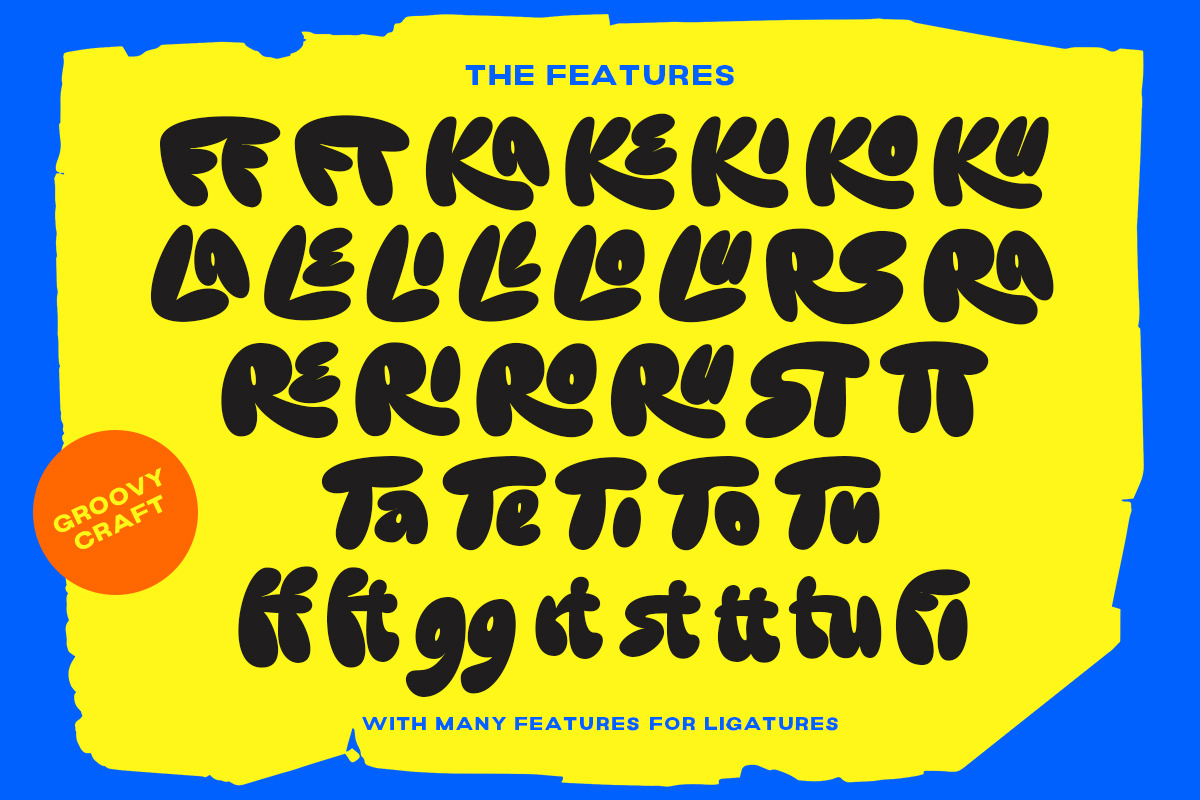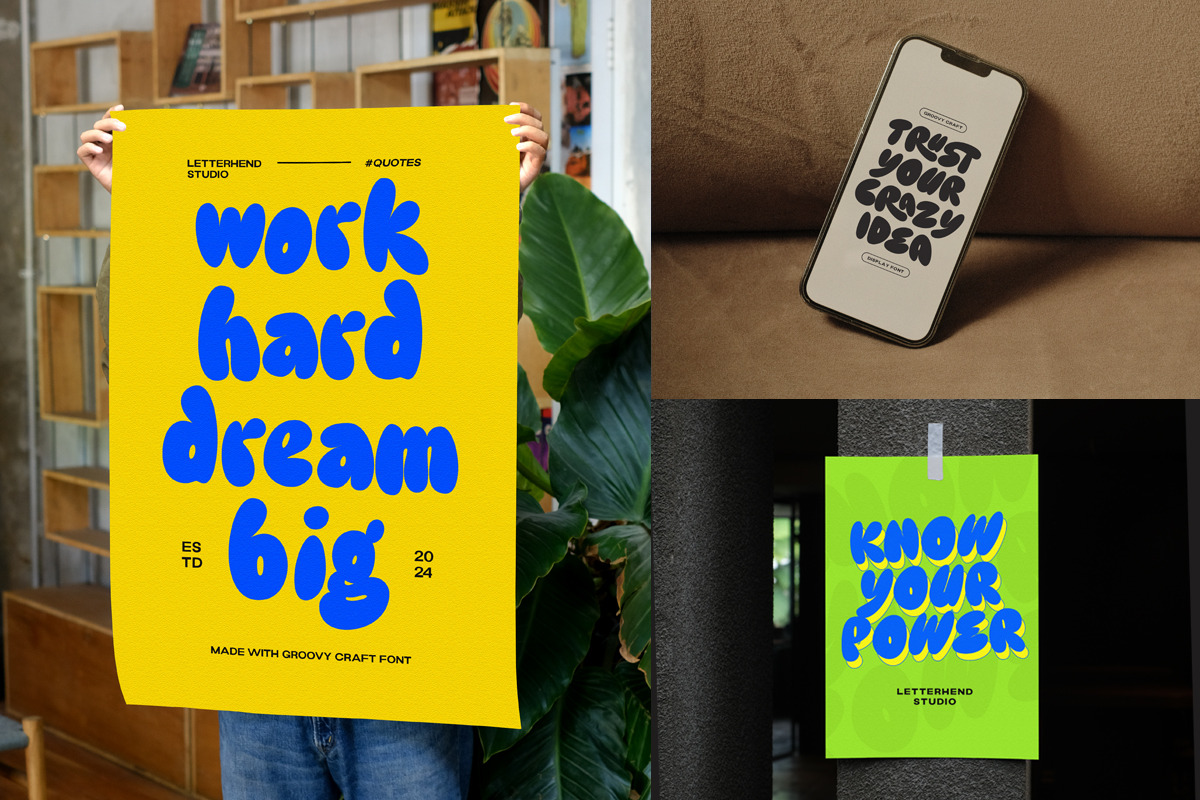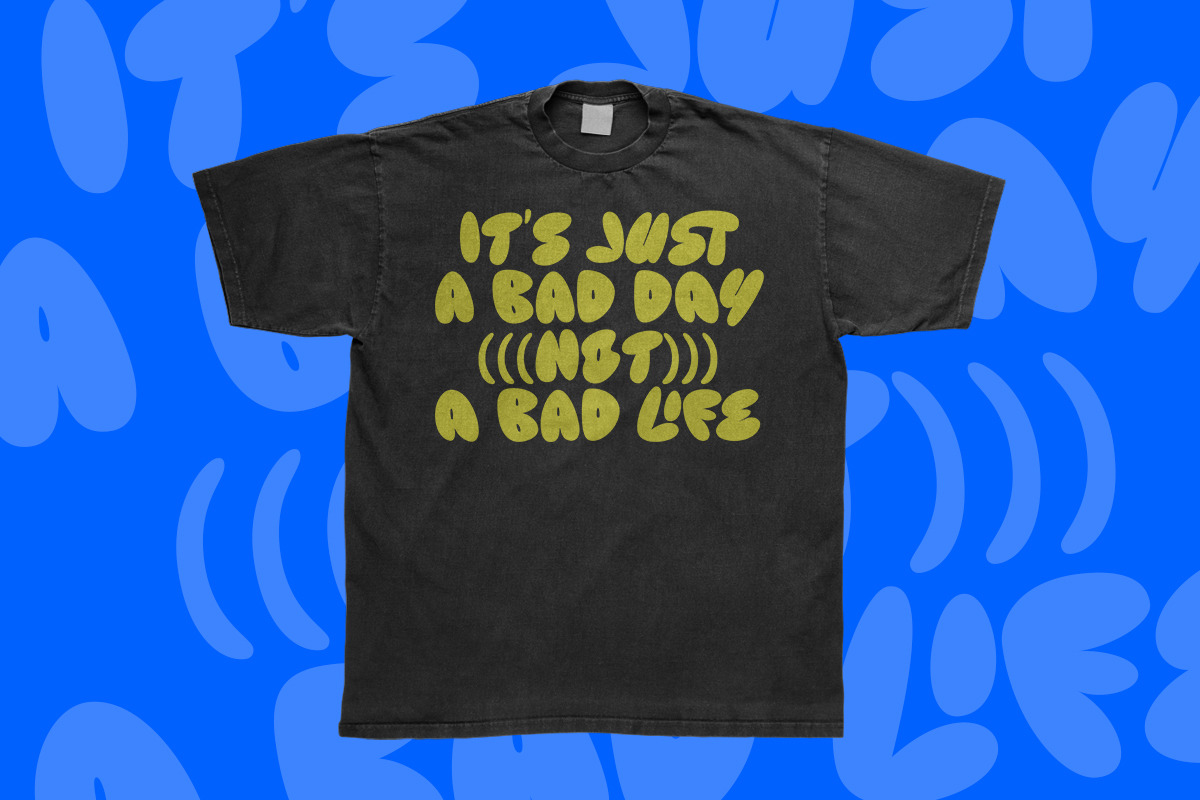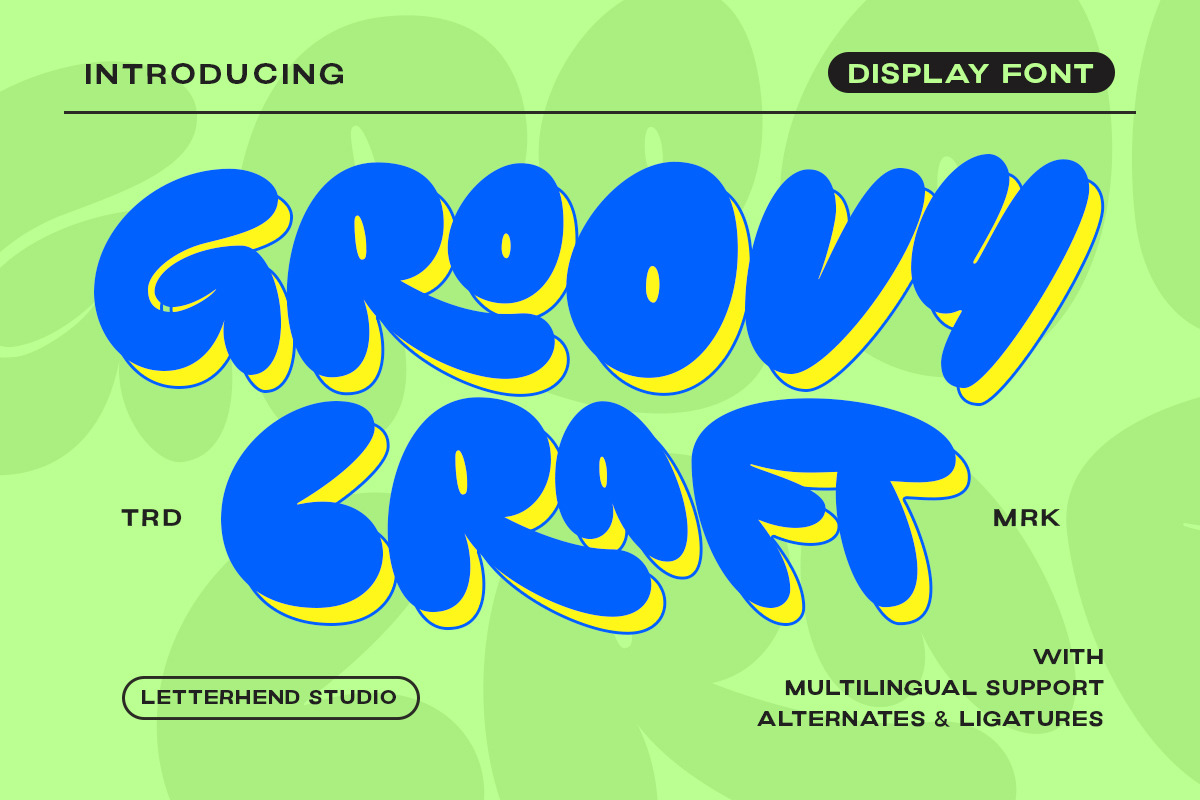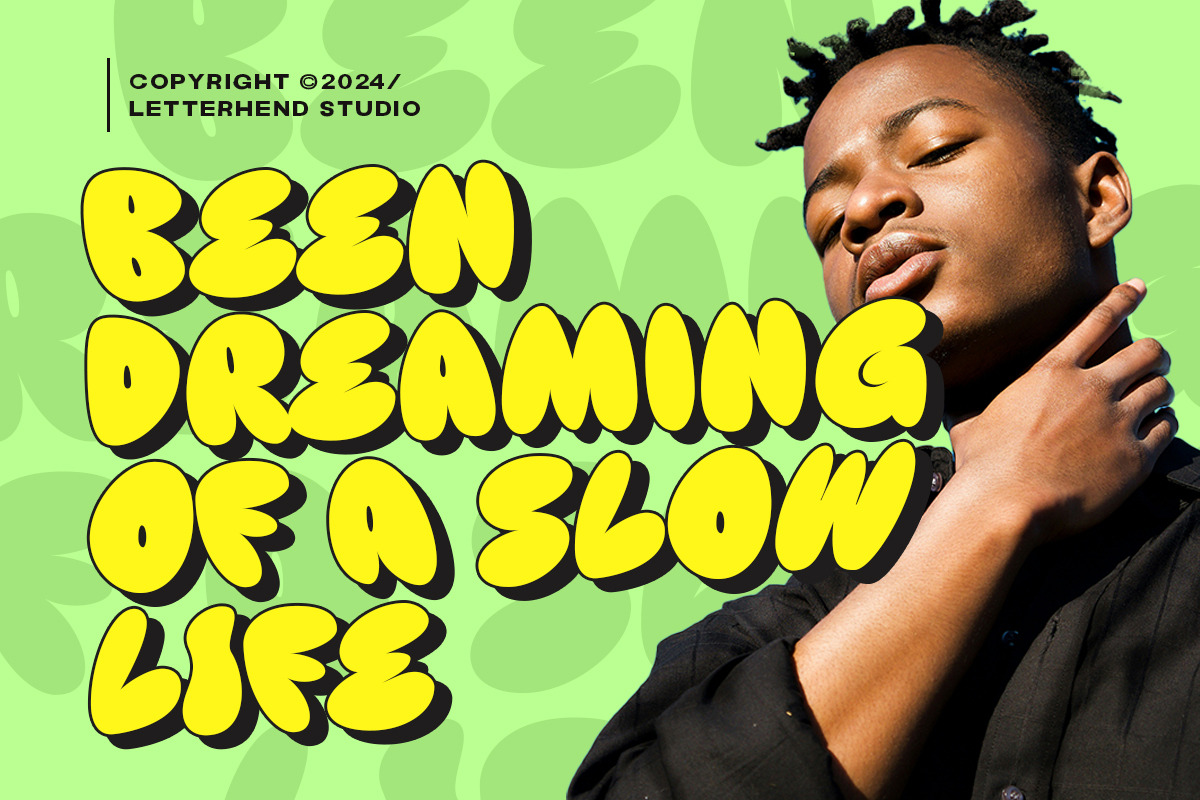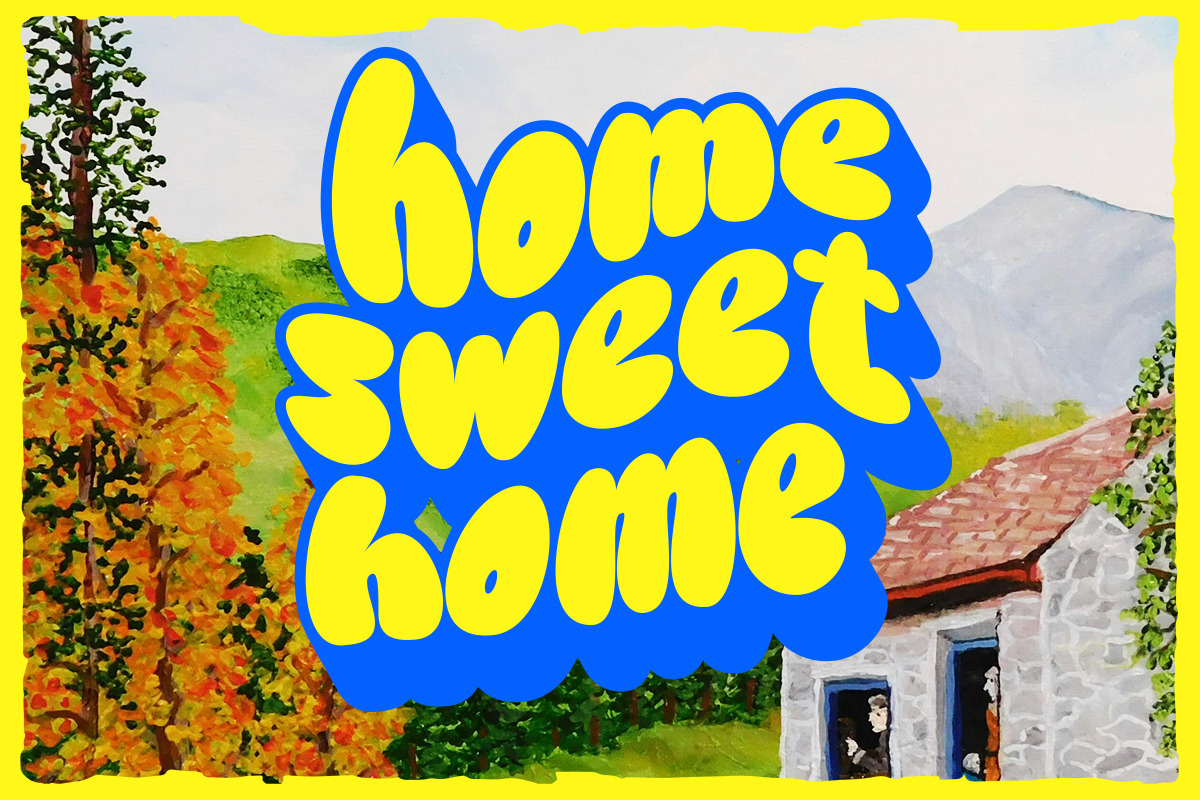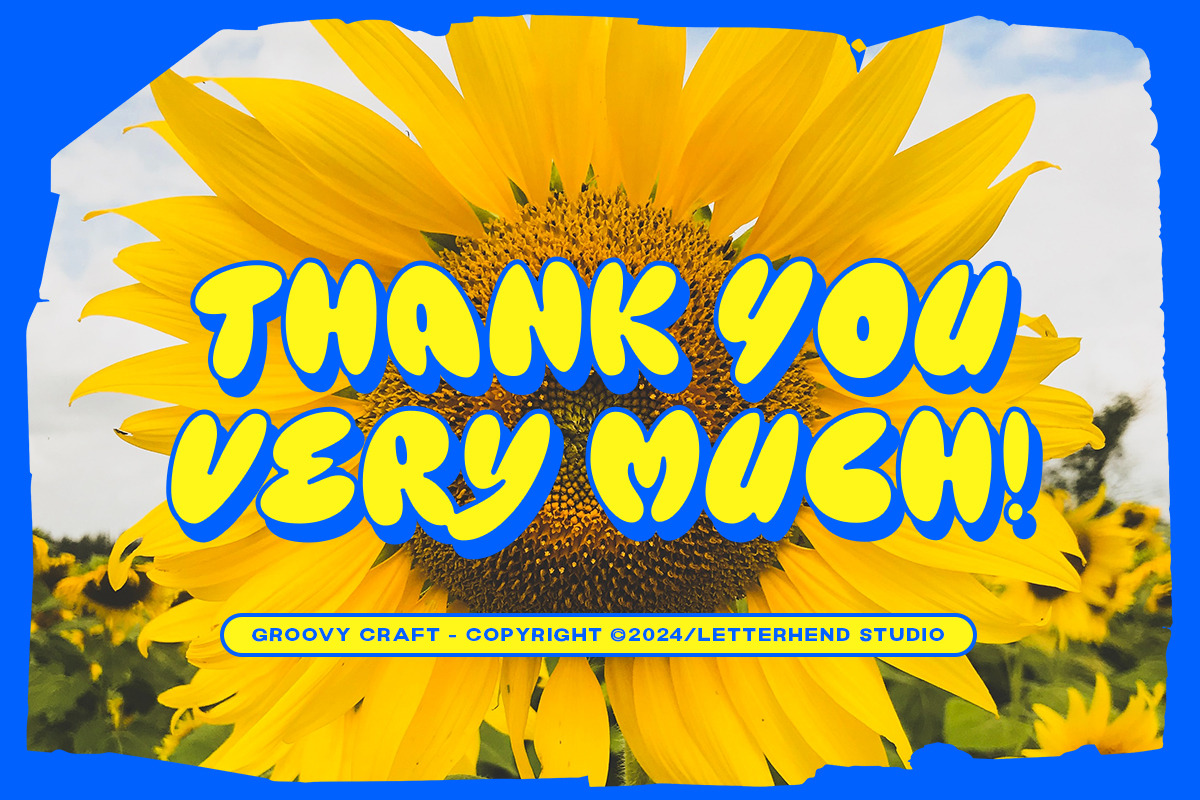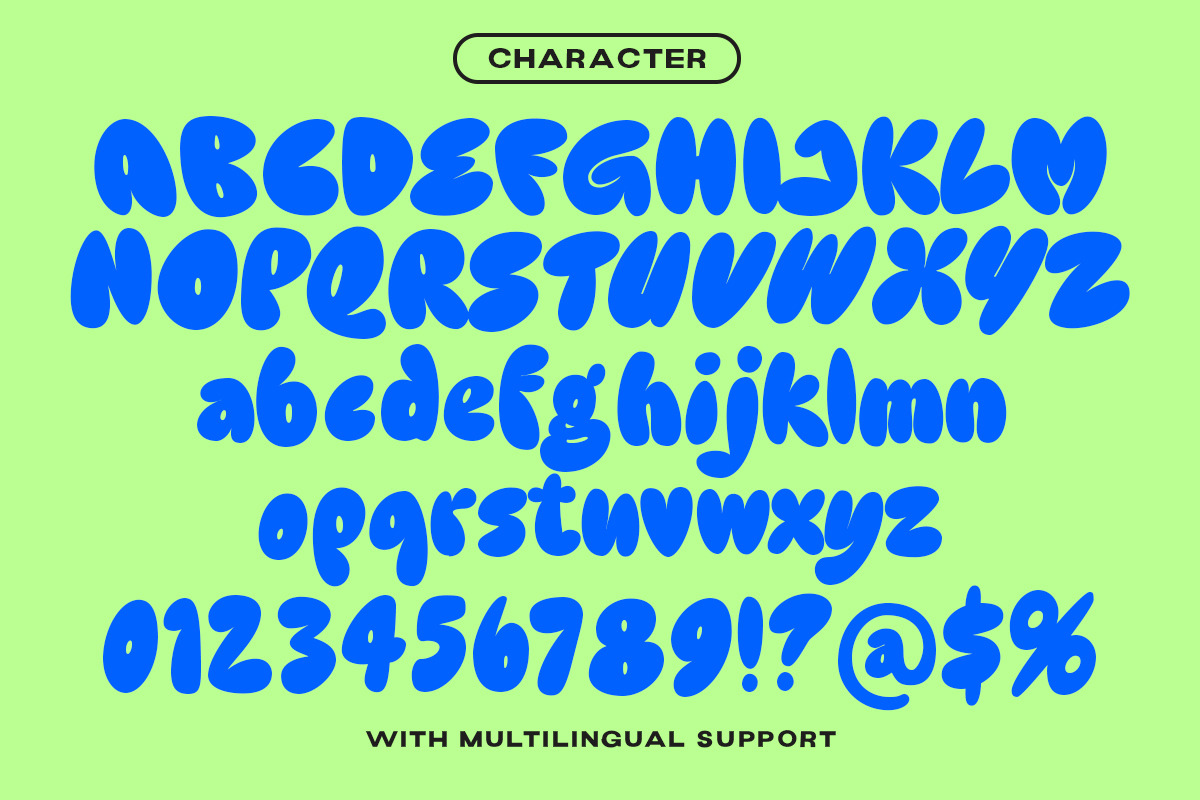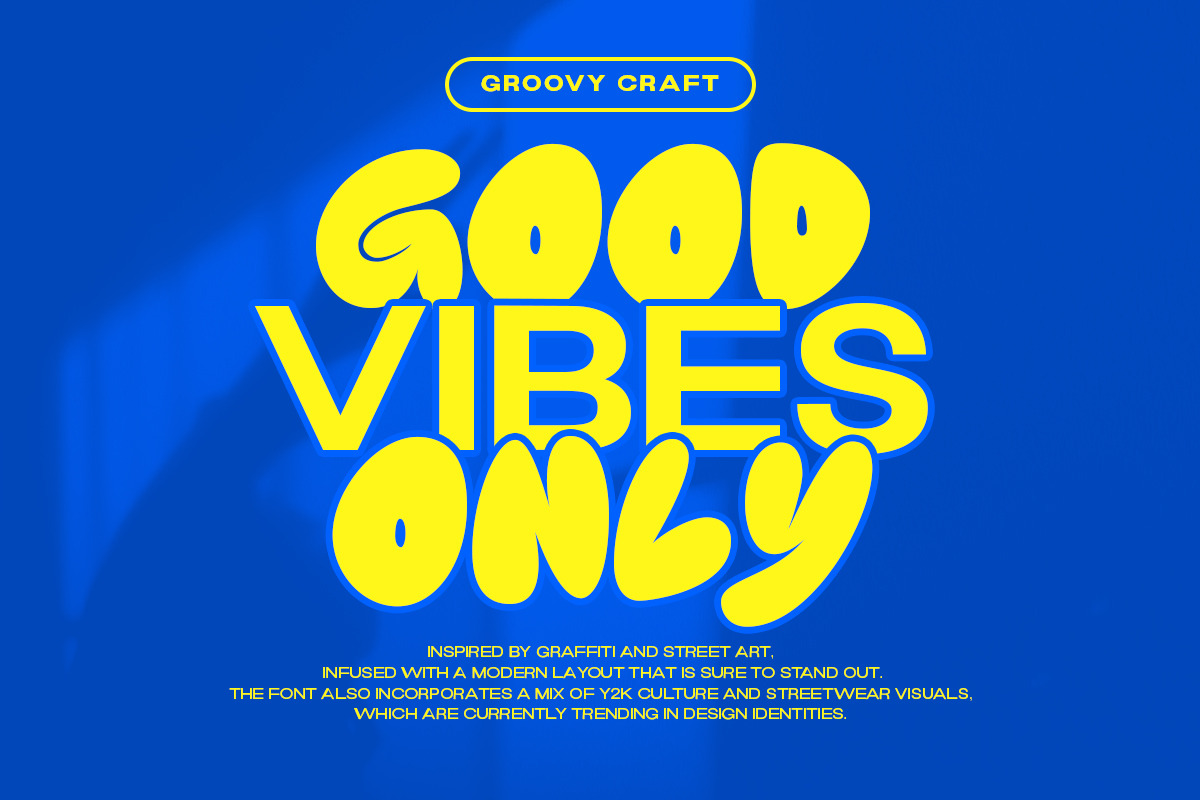
Groovy Craft Display Font
Groovy Craft is a funny display font with bubble letterform. This font will bring you back to retro feel. This font perfectly made to be applied especially in logo, and the other various formal forms such as invitations, labels, logos, magazines, books, greeting / wedding cards, packaging, fashion, make up, stationery, novels, labels or any type of advertising purpose.